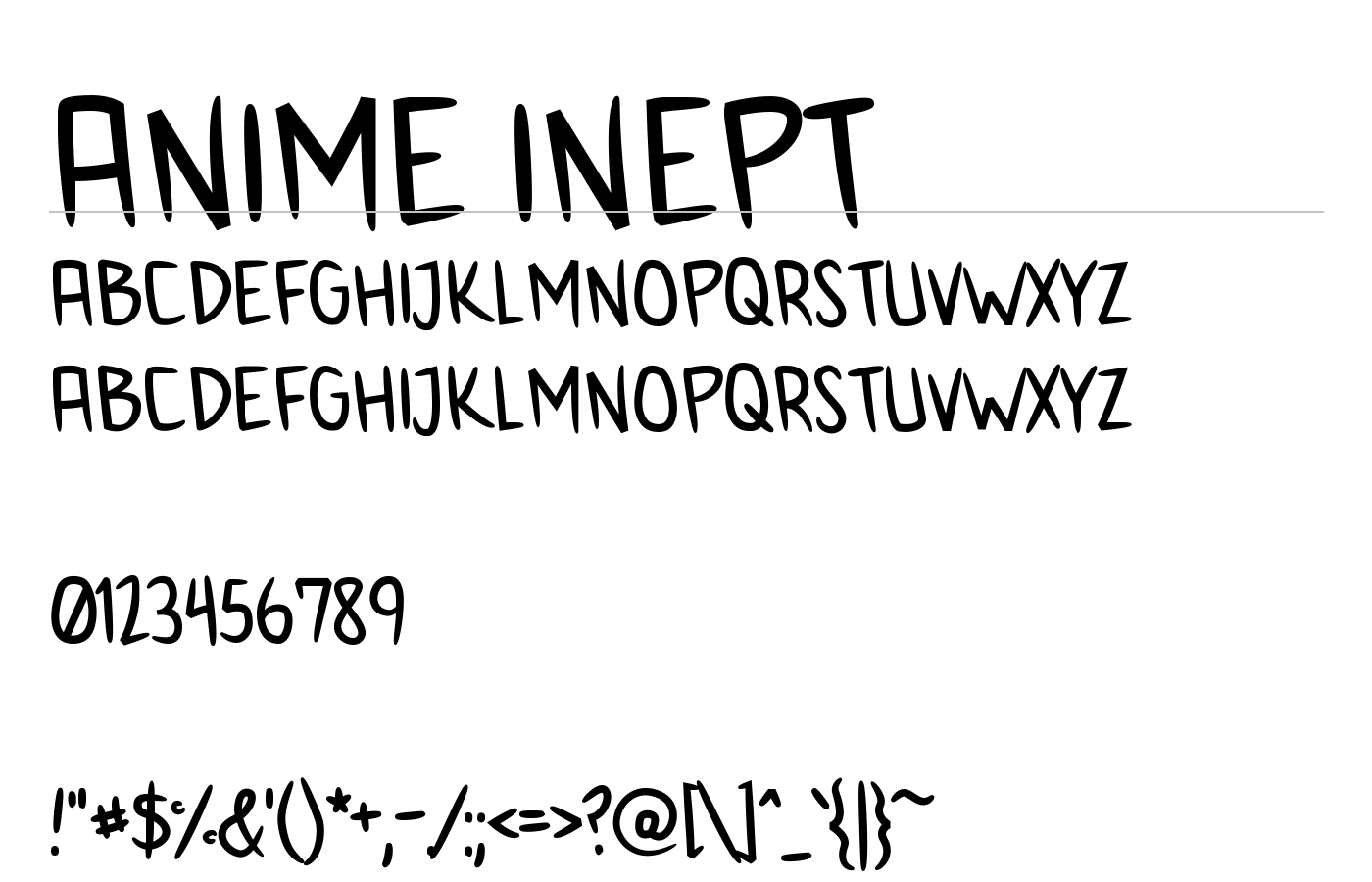
Anime Inept is a casual, handwritten sans serif font with a playful and youthful character. Its tall, slightly irregular letterforms and varied stroke widths give it a lively, approachable feel, making it ideal for informal designs such as comics, children’s projects, or fun branding. This font works best for headlines, logos, and creative displays where a friendly and energetic tone is desired.
Anime Inept Font
About Anime Inept Font